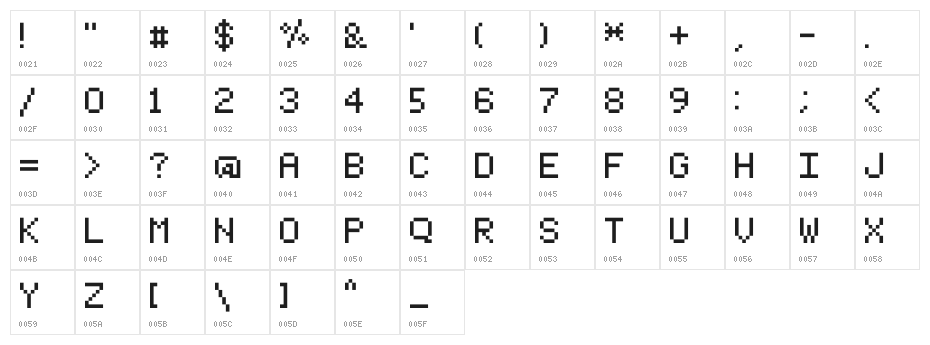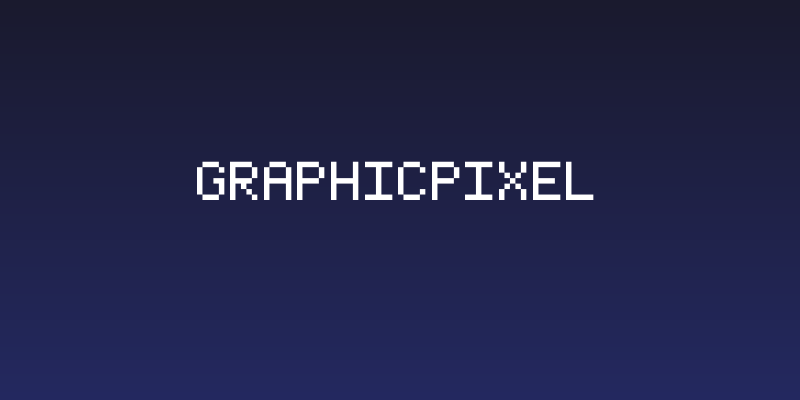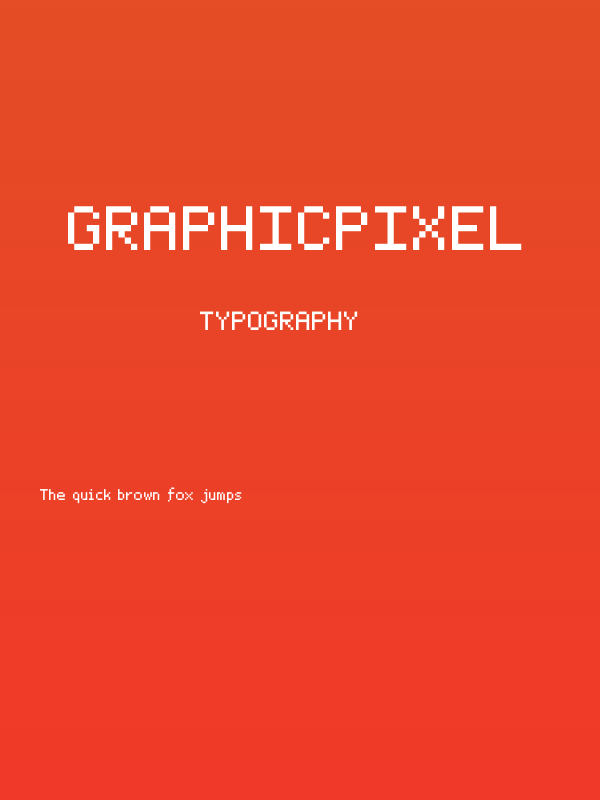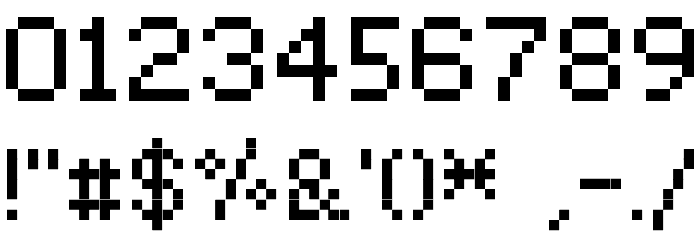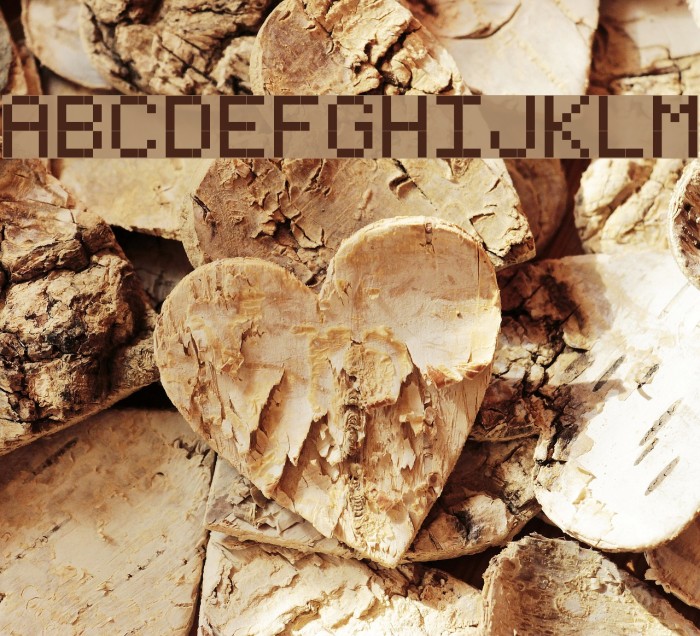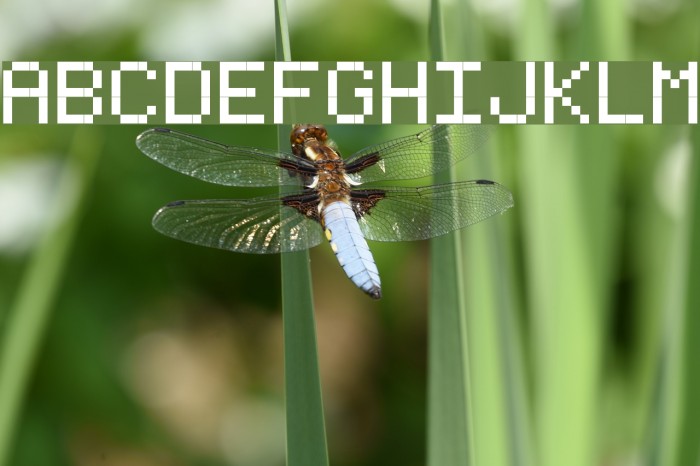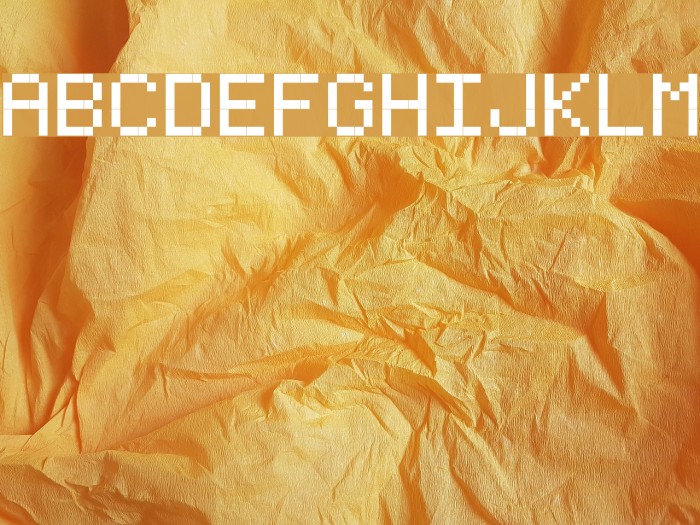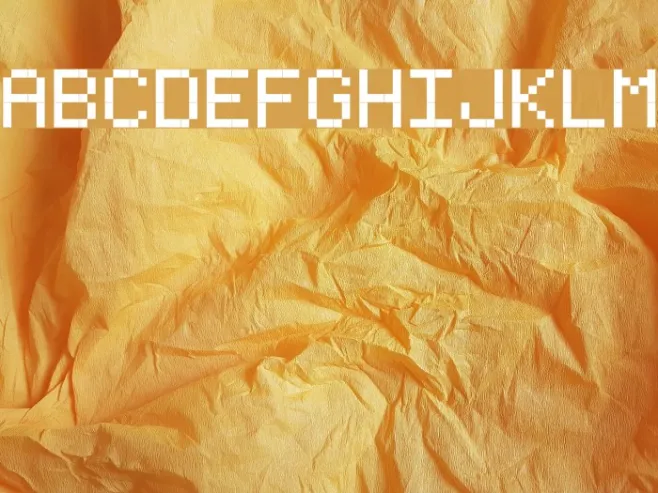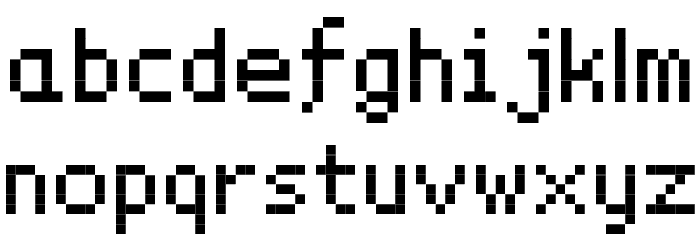
GraphicPixel Font
GraphicPixel Description
This font features a pixelated, grid-like design reminiscent of early digital displays and classic video games. Each character is composed of small square blocks, creating a distinctly retro and digital aesthetic. The uppercase and lowercase letters maintain a uniform height, contributing to a cohesive and structured appearance. Numbers and special characters follow the same pixelated style, ensuring consistency across all elements. The font's simplicity and geometric form make it highly legible, even at smaller sizes, while its nostalgic charm adds a playful touch to any design.
| Overall Style | Retro, Digital |
| Use Case | Headlines, Logos, Digital displays |
| Proposed Projects | Ideal for retro video game designs, digital art projects, tech-themed posters, and nostalgic branding. |